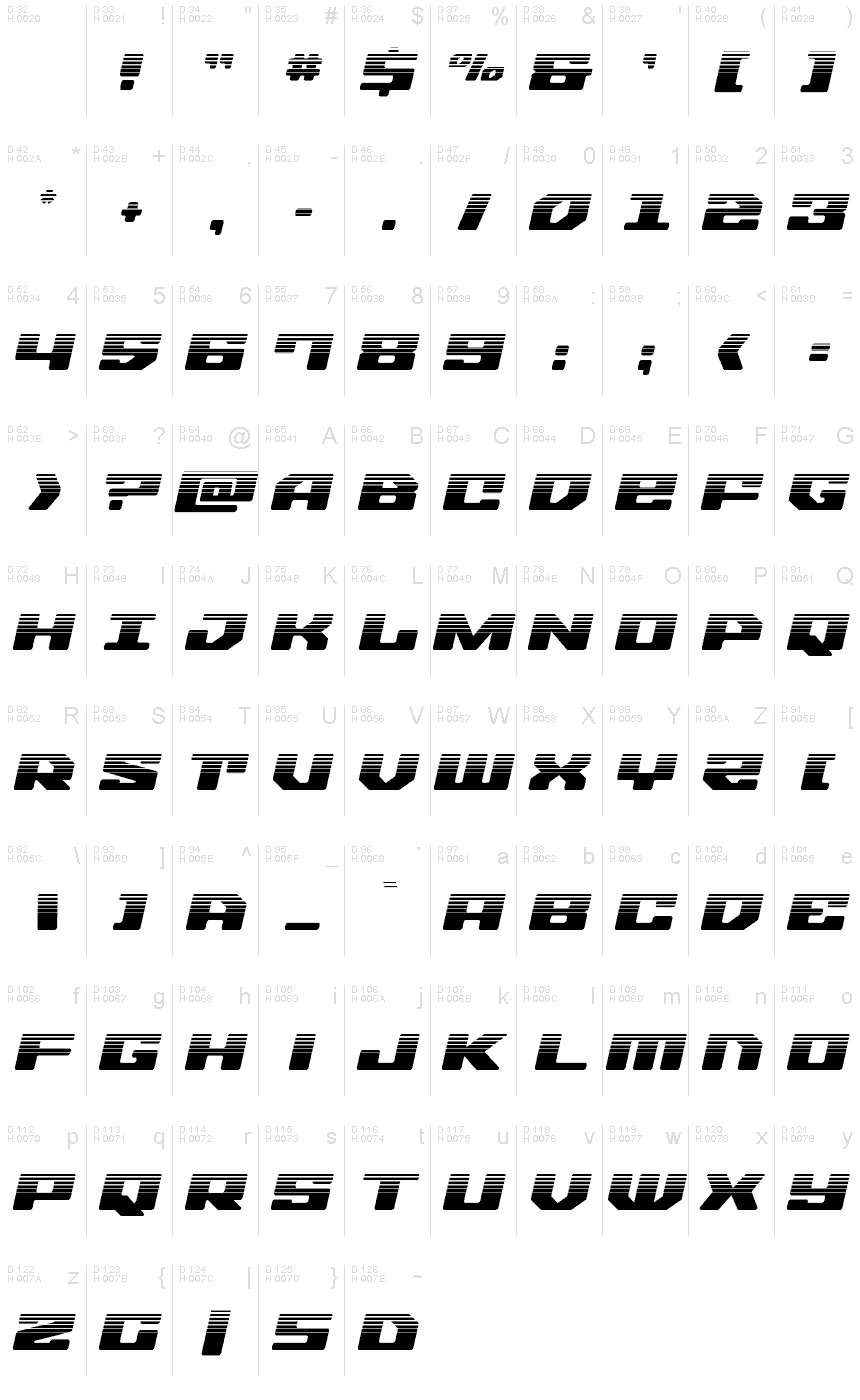
Fawkes Halftone Italic
Fawkes Halftone Italic font by Iconian Fonts is a free techno display expanded font. It features a futuristic and geometric design with sharp angles for letters that reveal beautiful modern aesthetics alongside a sleek and technology-influenced look. The Fawkes typeface is also bold, artistic, and instantly eye-catching even when used with regular medium-sized texts.
Use the Fawkes Halftone Italic in designing titles, headers, logos, signage boards, or product packaging. Other suggested use cases include T-shirts, magazines, posters, badges, labels as well as company names of construction or vehicle rental services. Use it in writing captions for industrial photography too!